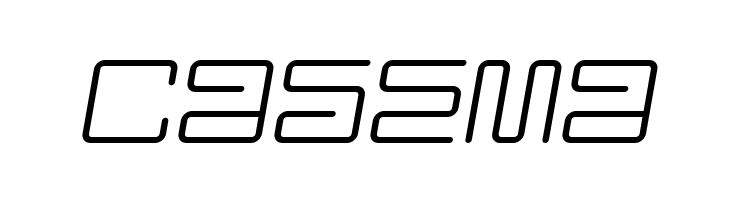
Blade Singer Outline Italic Font
- Font: Blade Singer Outline Italic
A futuristic, geometric outline font with consistent height and stylized characters.